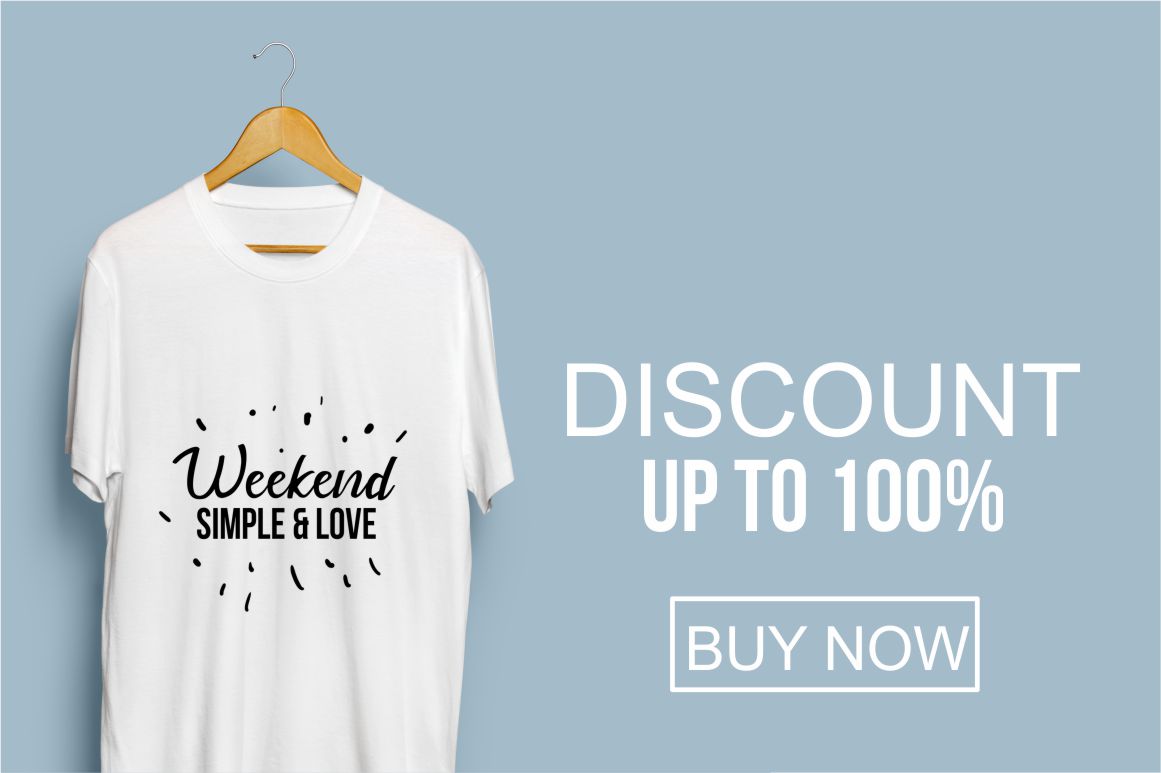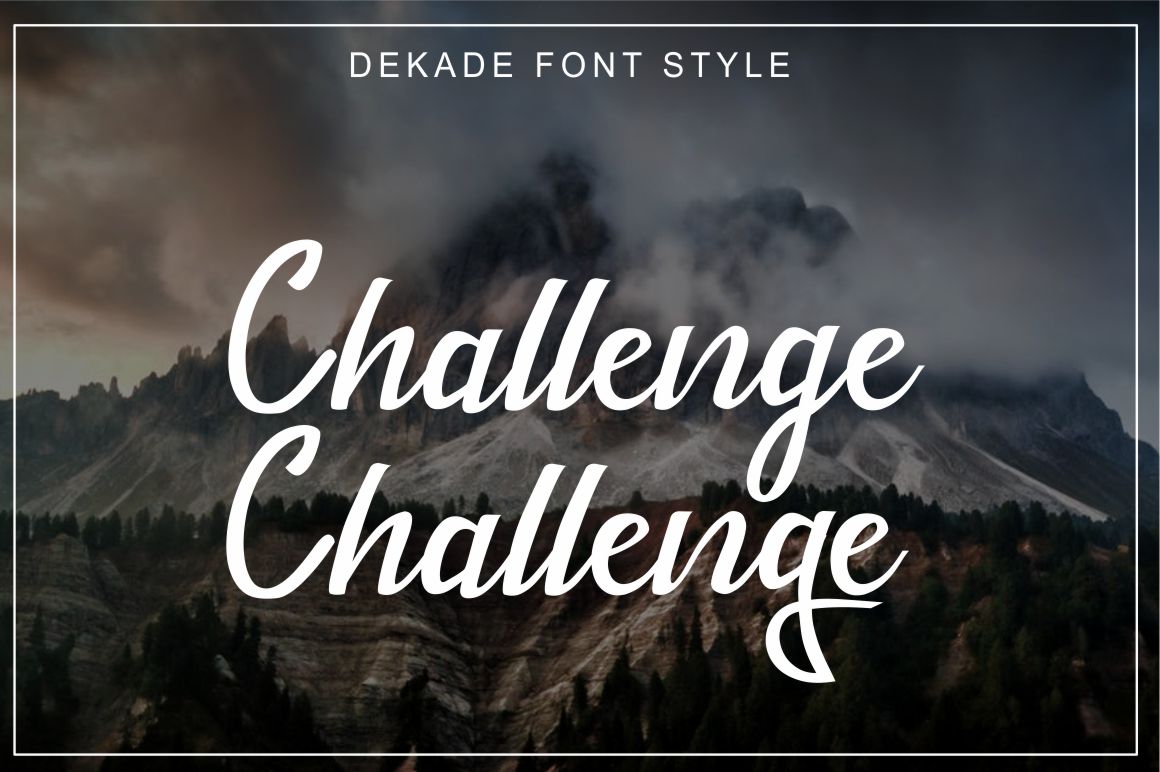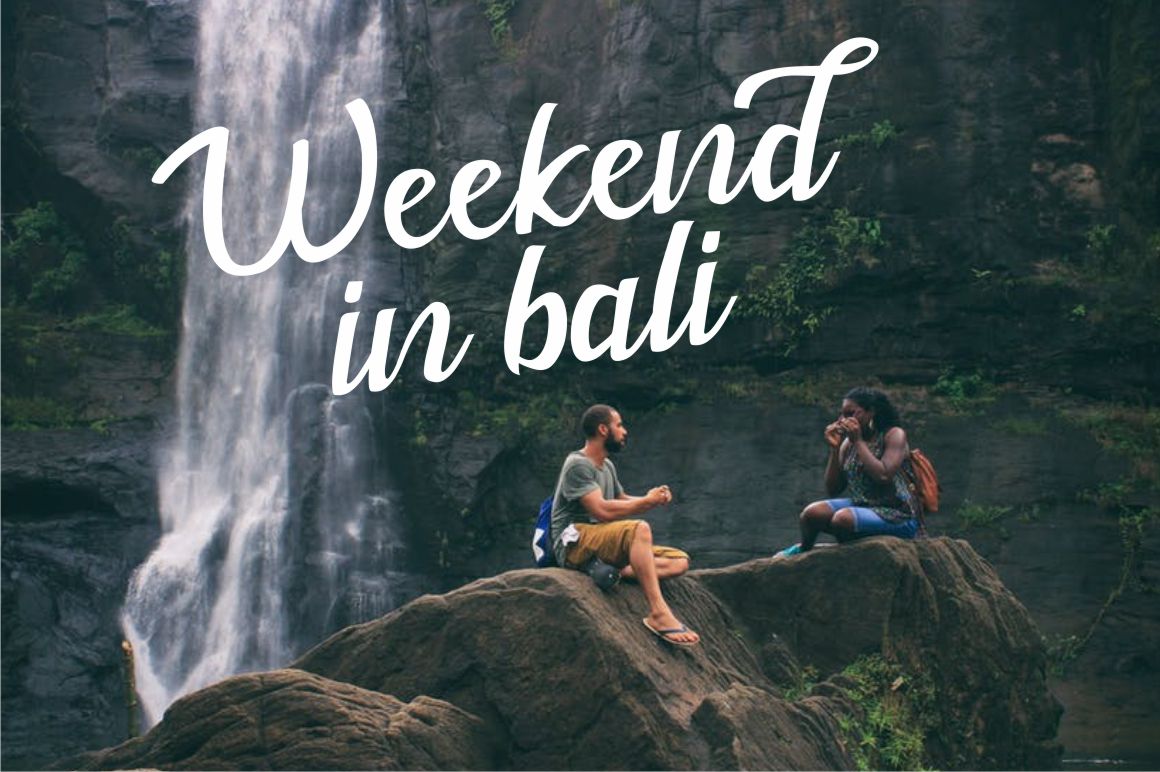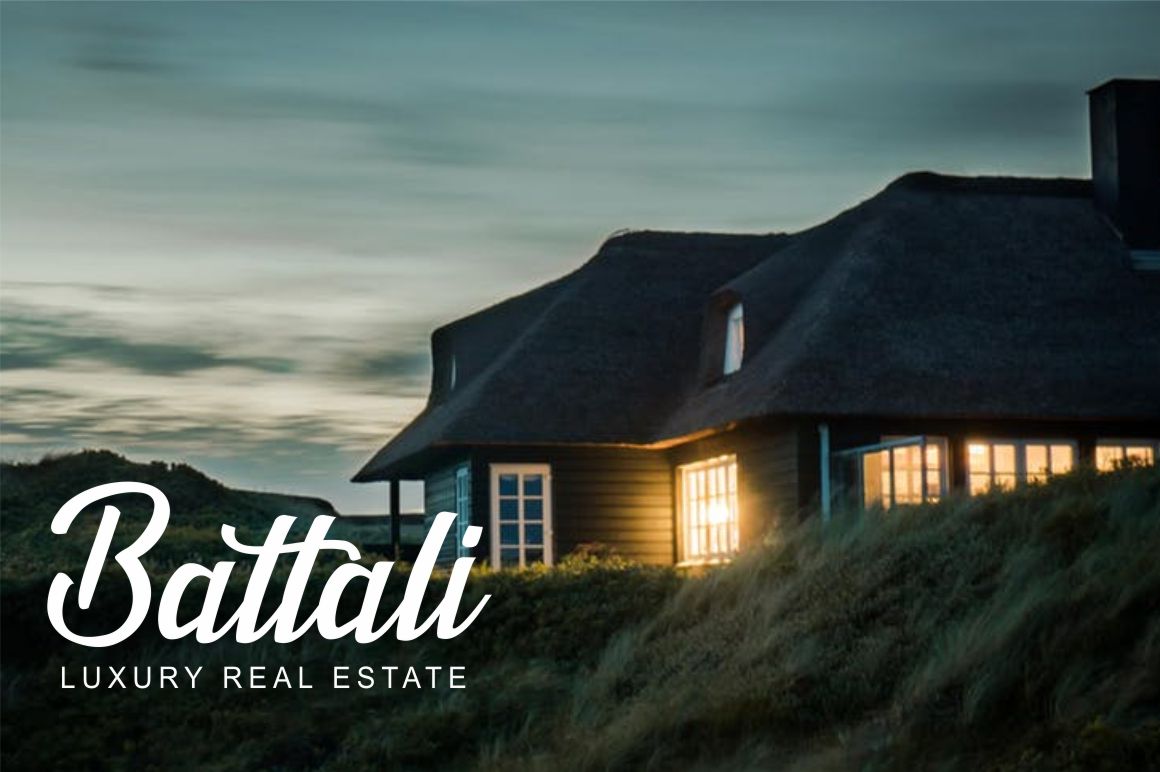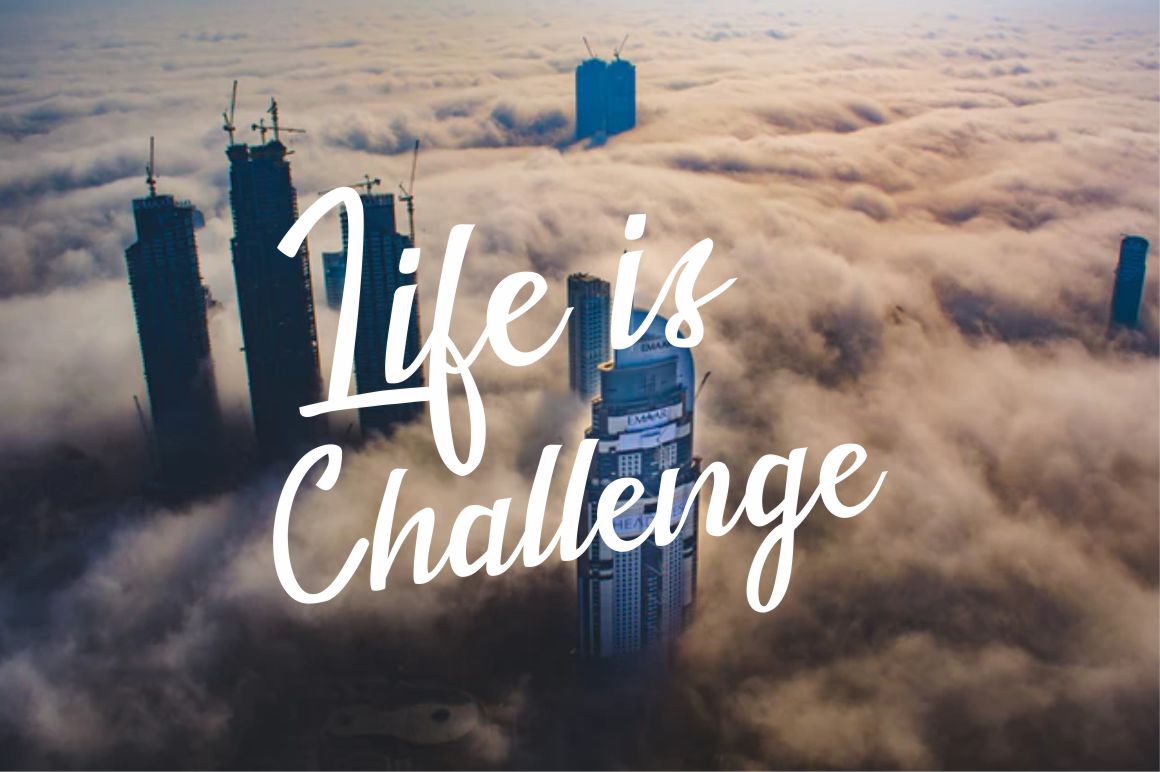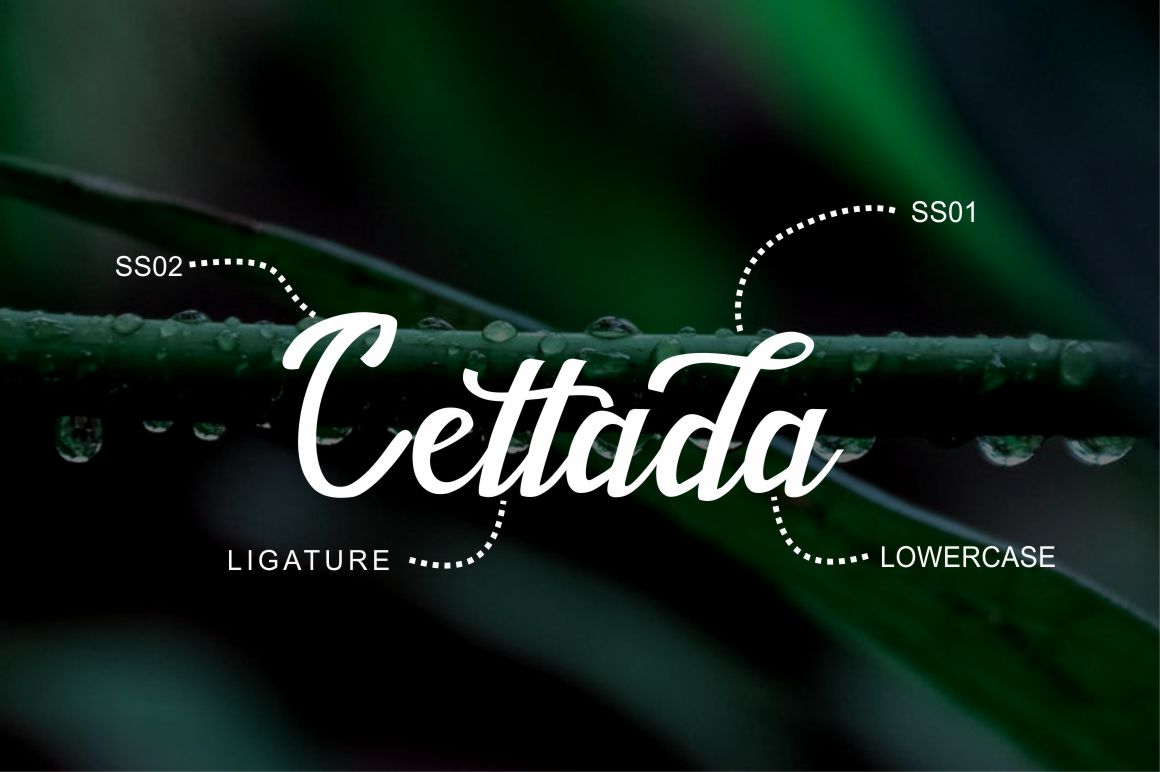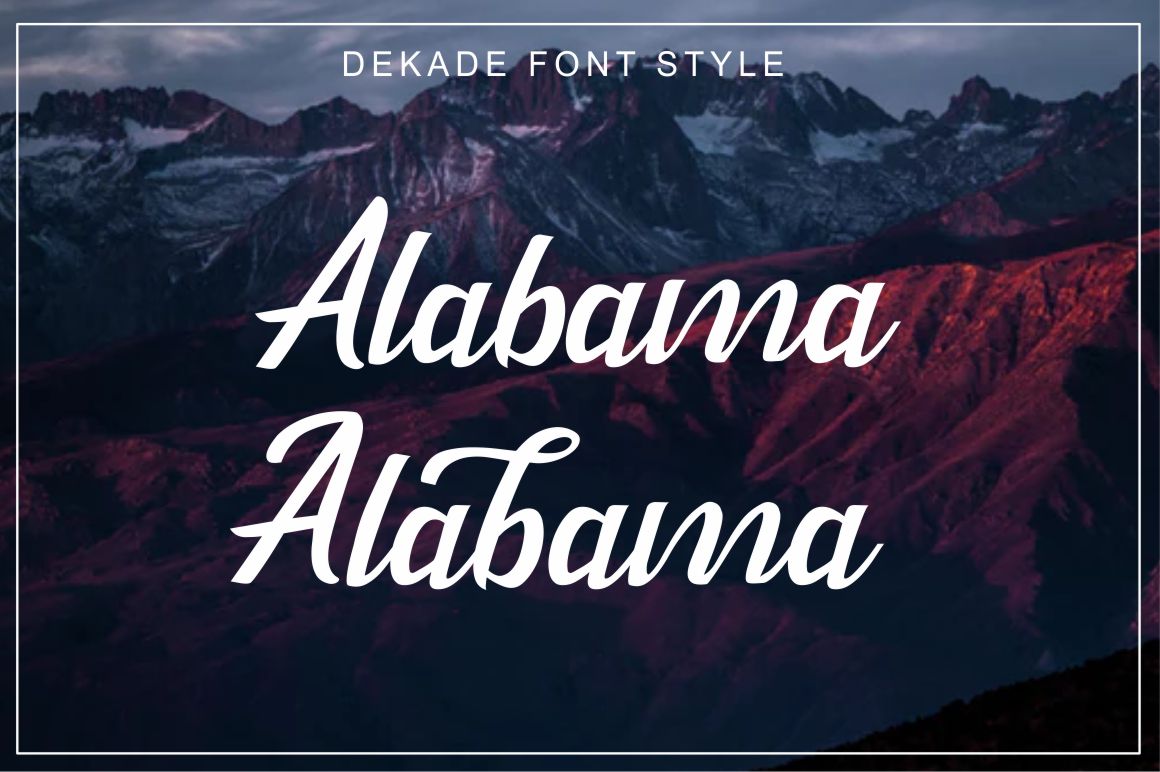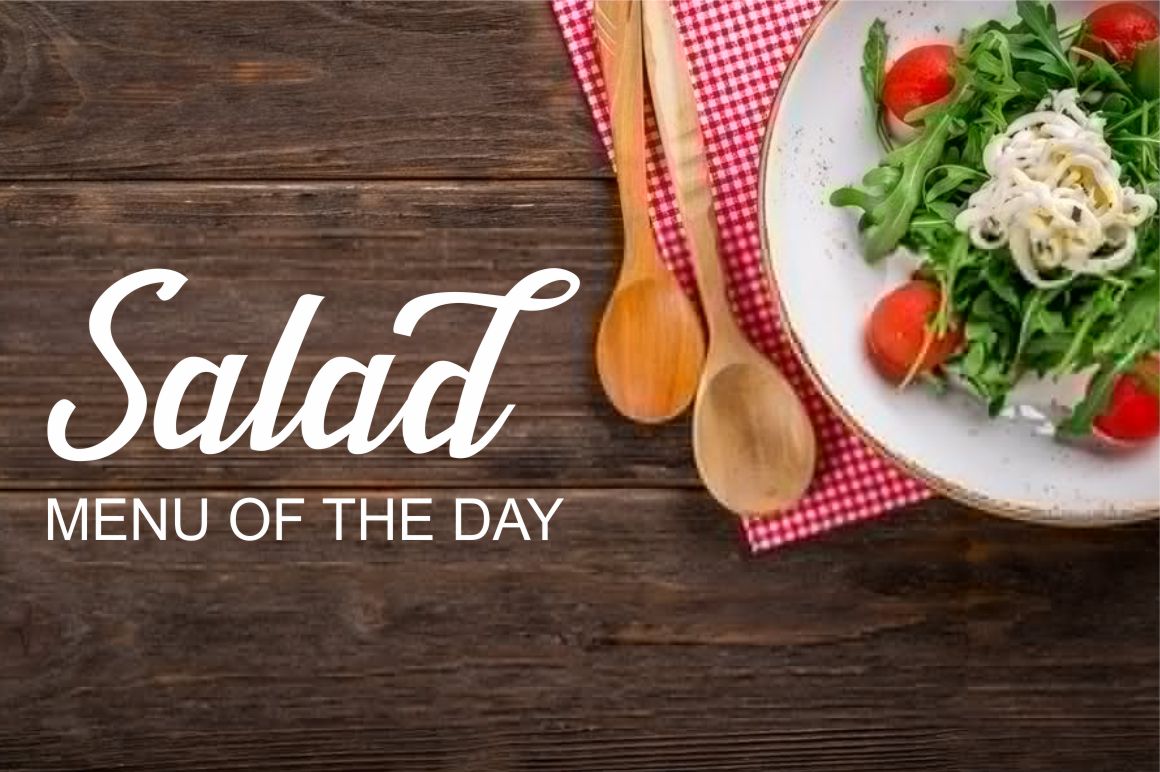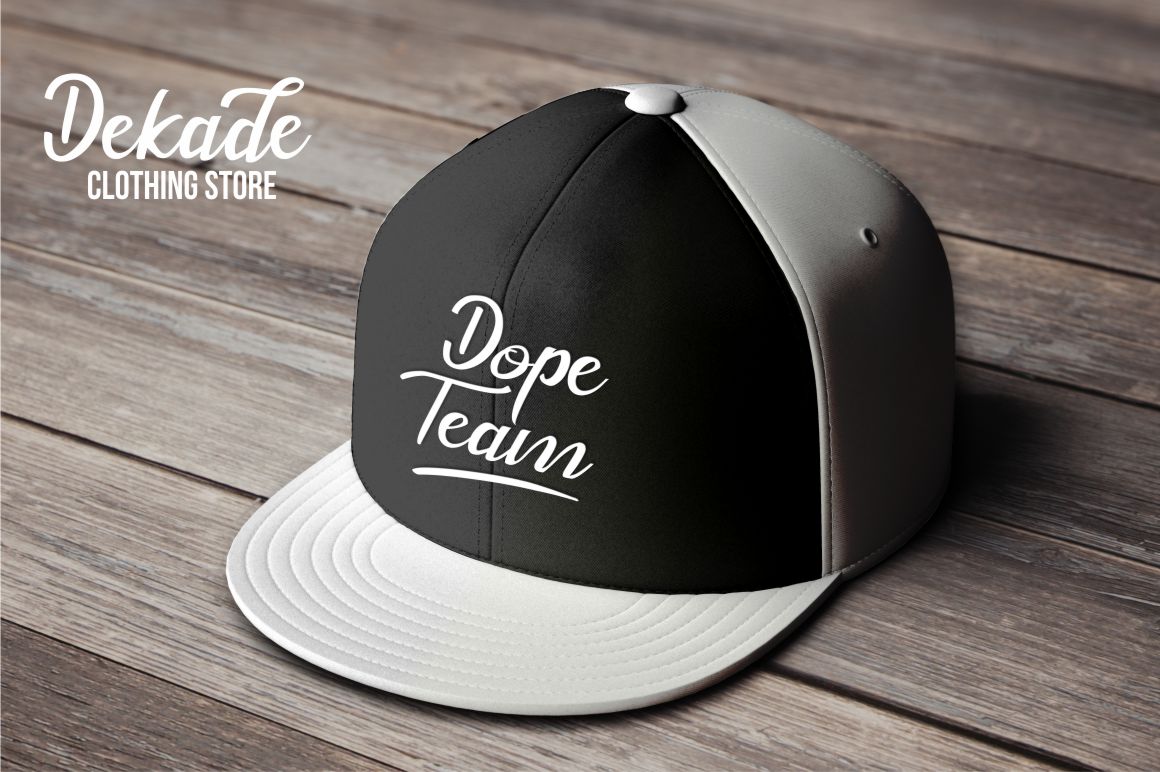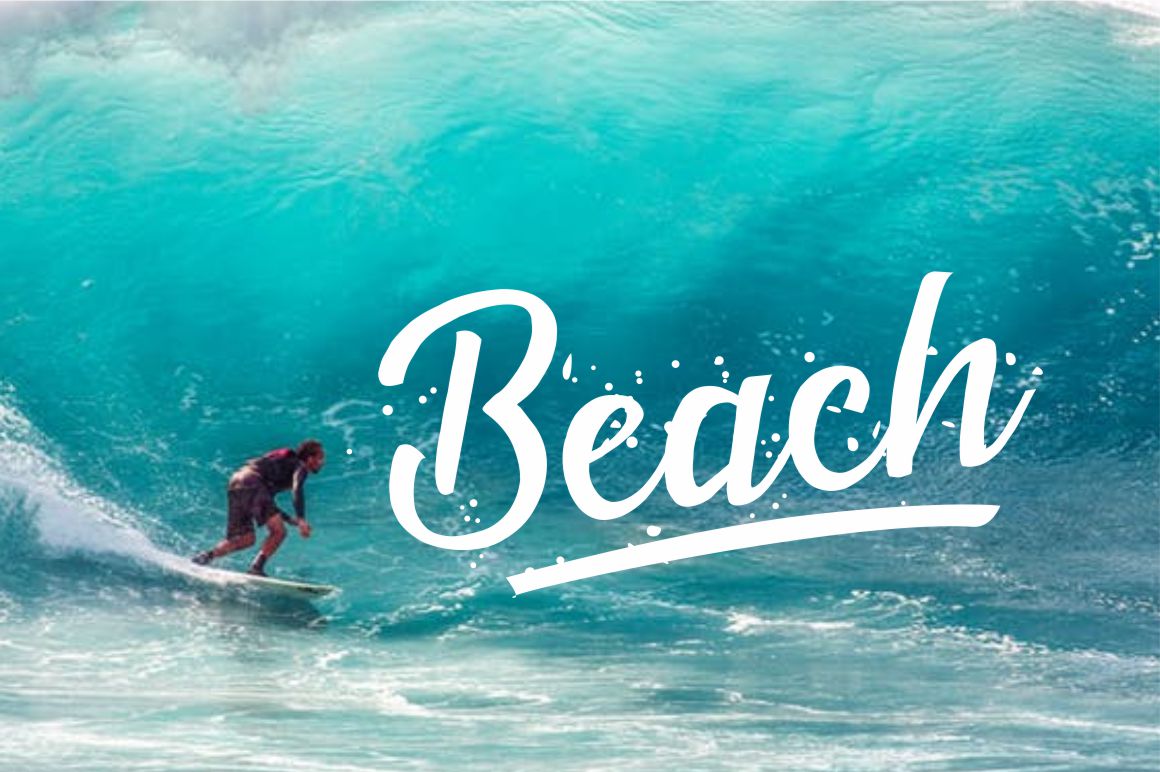
Dekade Font
About Dekade Font
Dekade is a hand brushed typeface with an authentic and modern style. This font functions most strongly as a display or headline font, and is a phenomenal option for logotype designs.